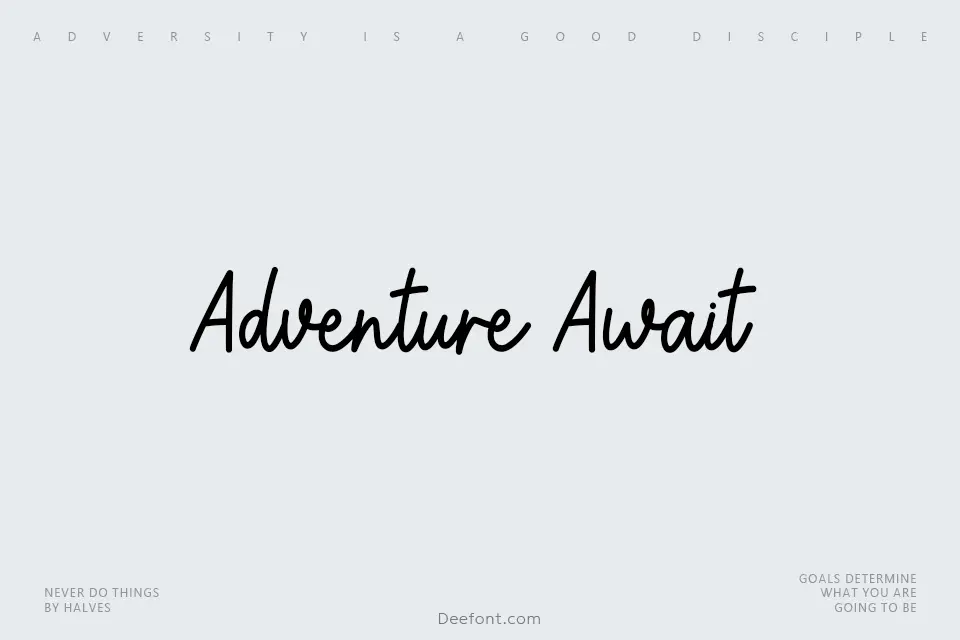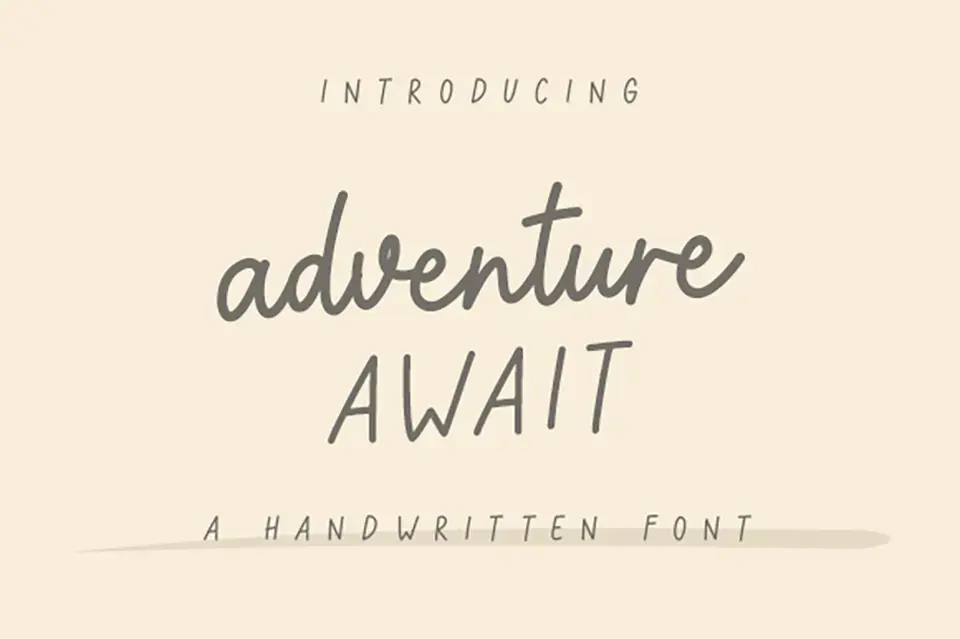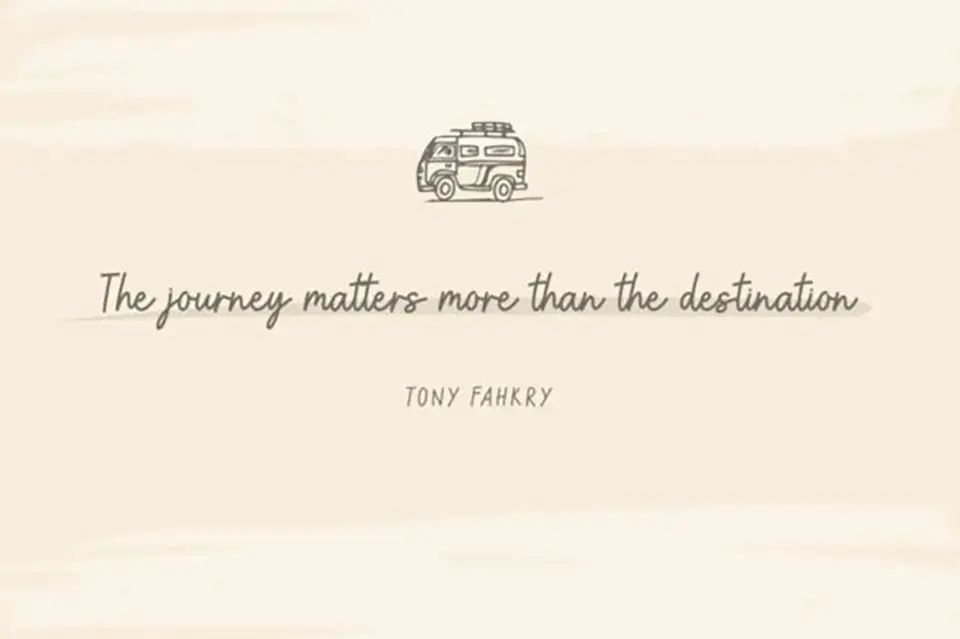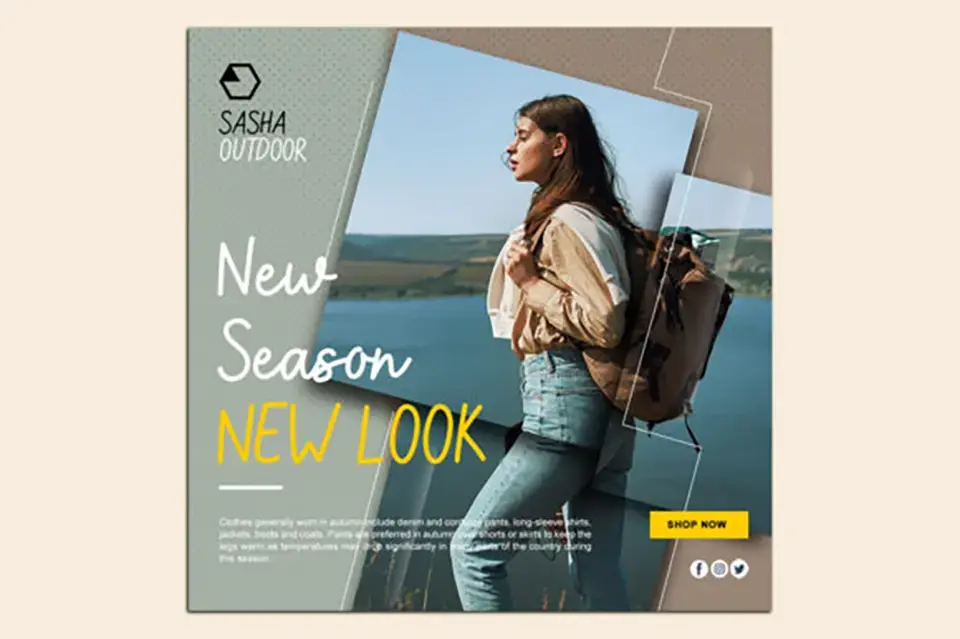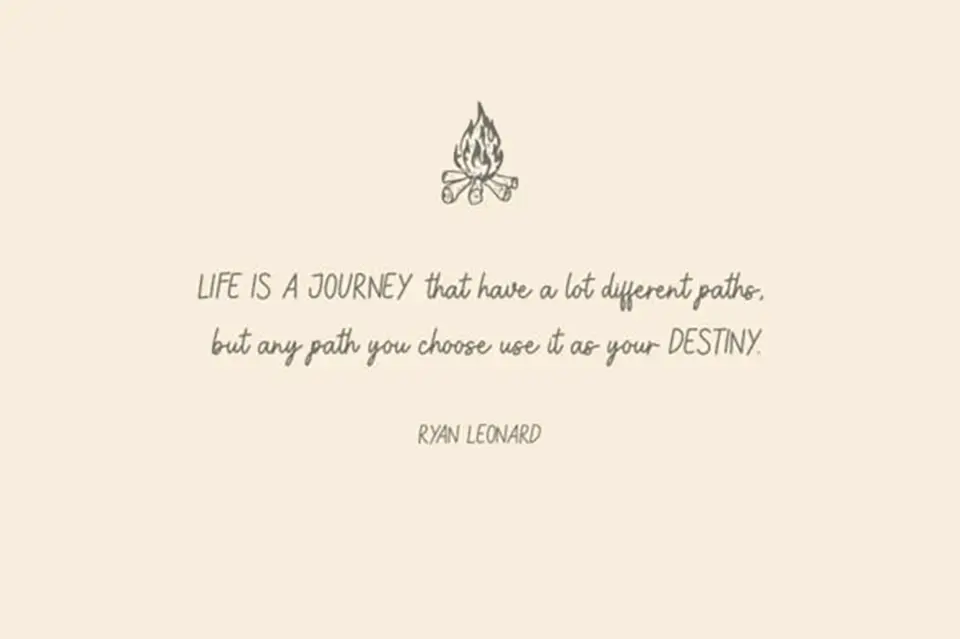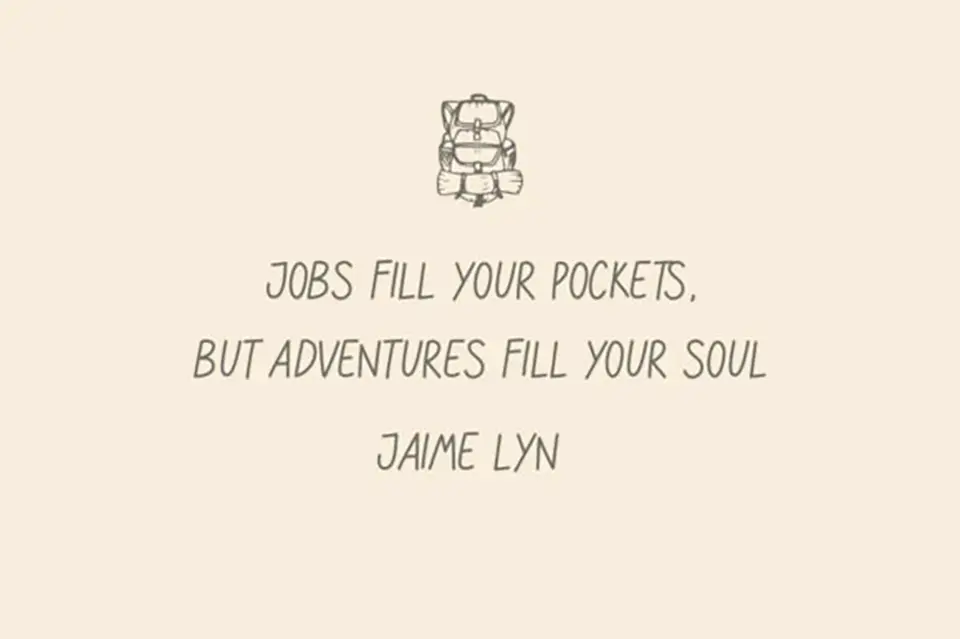
Adventure Await Font
Adventure Await is a delightfully expressive handwritten script font that captures authentic brushwork and casual lettering. Featuring organic letterforms with warmth and personality, this typeface excels in adventure-themed projects, festive posters, playful social media graphics, gift packaging, and creative invitations. Its relaxed stroke quality and approachable character make it perfect for designs seeking personality and genuine hand-drawn appeal, from children’s book illustrations to motivational wall art and holiday campaigns.